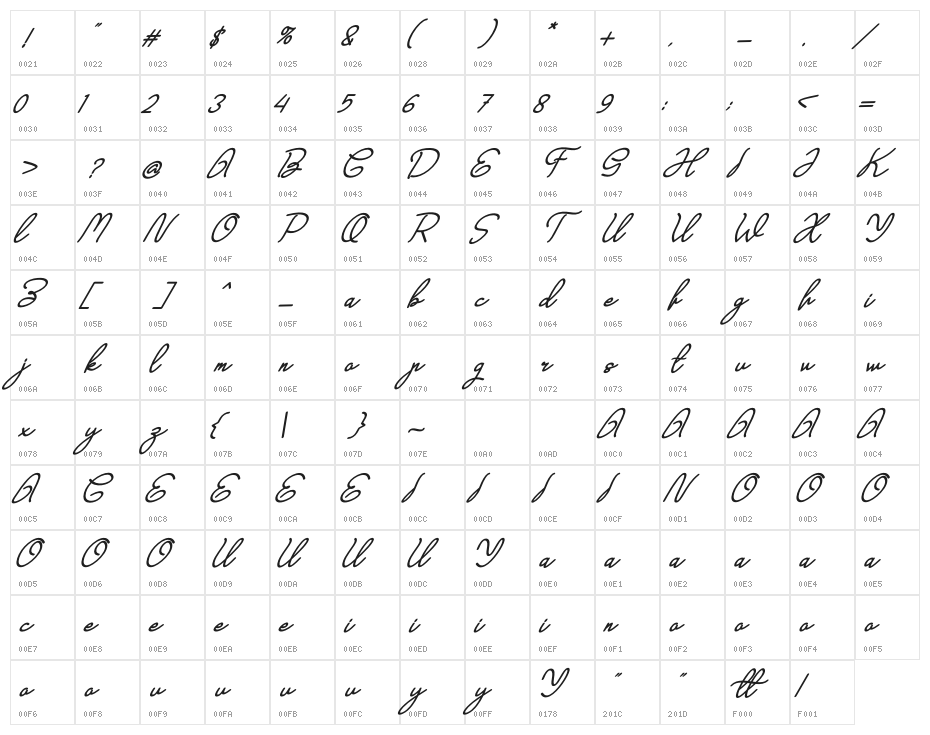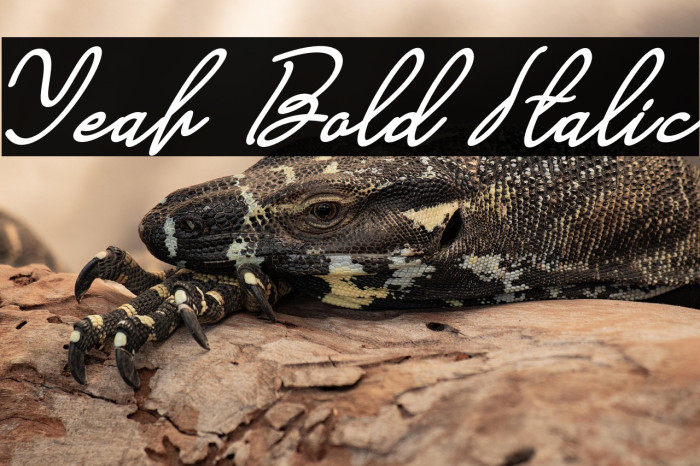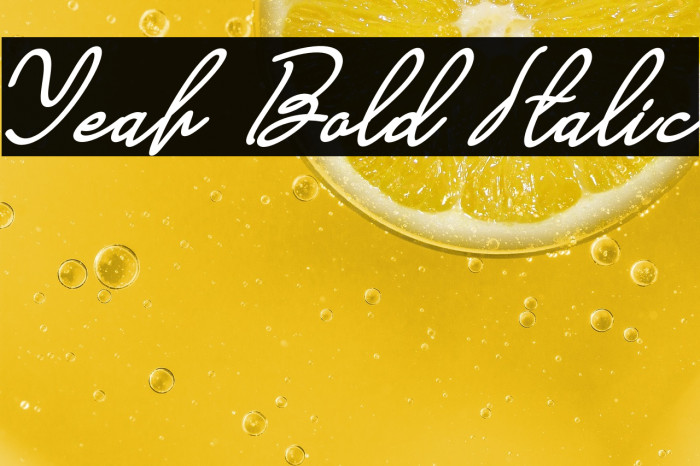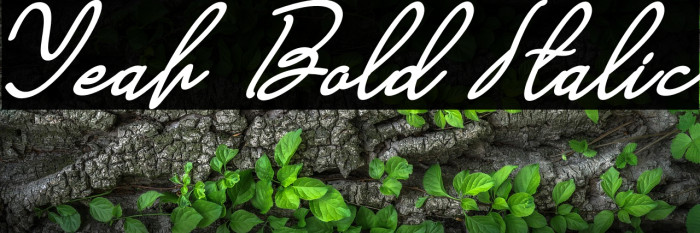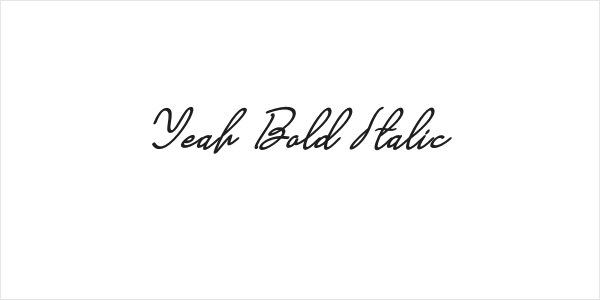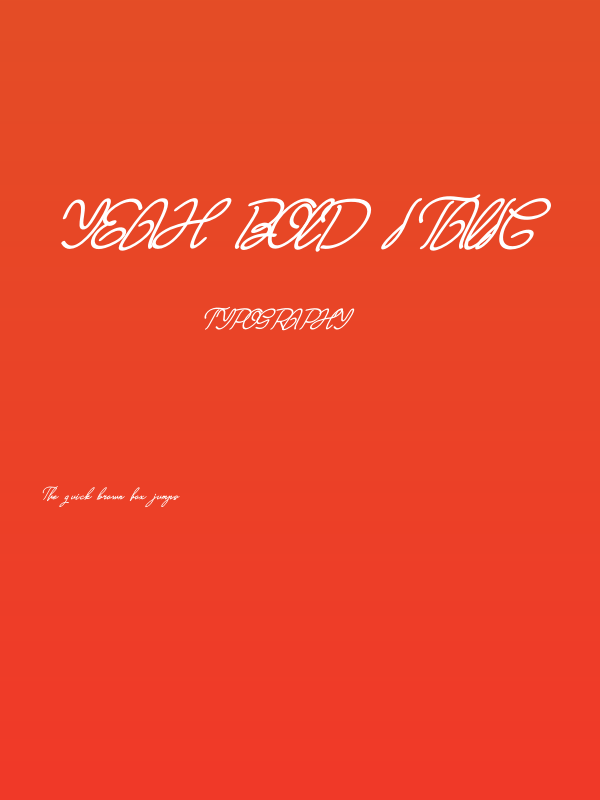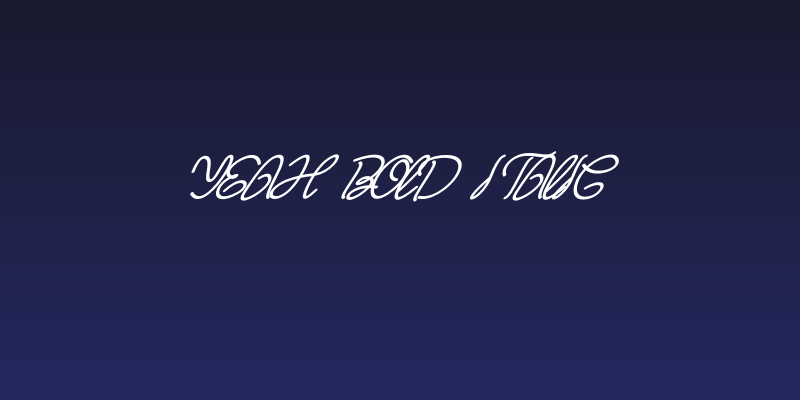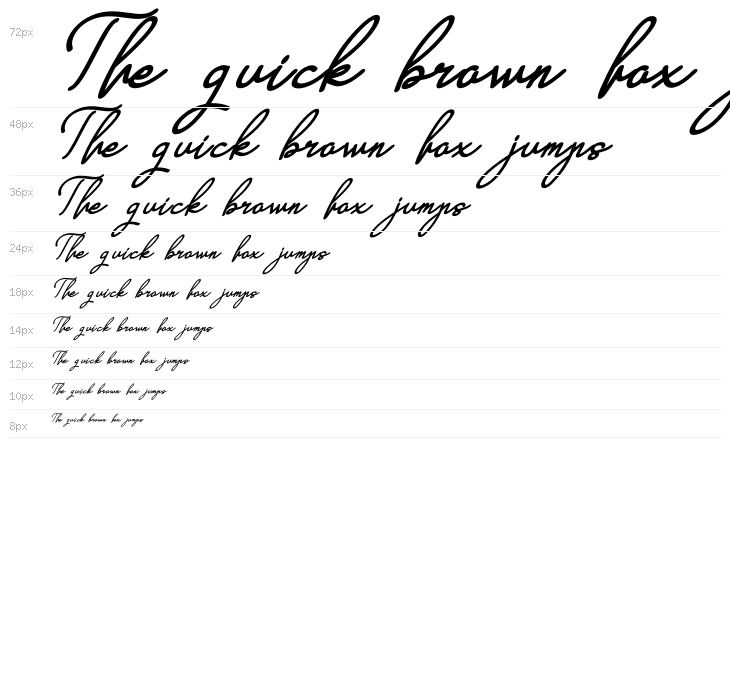
Yeah Bold Italic Font
Yeah Bold Italic Description
A bold, italic script font with a handwritten style, featuring fluid and connected strokes.
| Use Case | Logos, Headlines |
| Proposed Projects | Invitations, greeting cards, personal branding. |